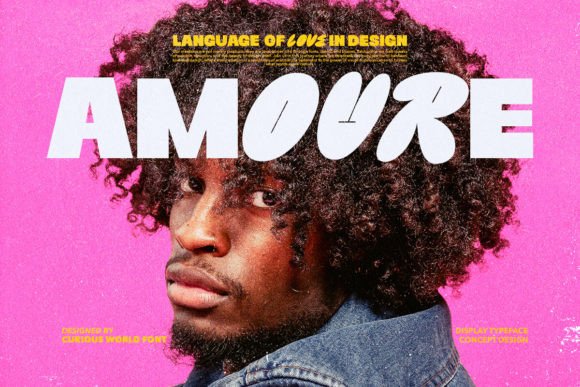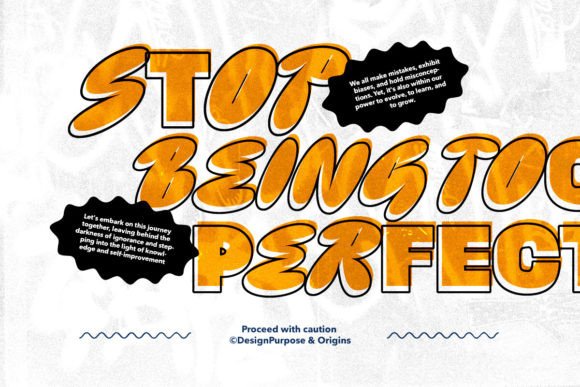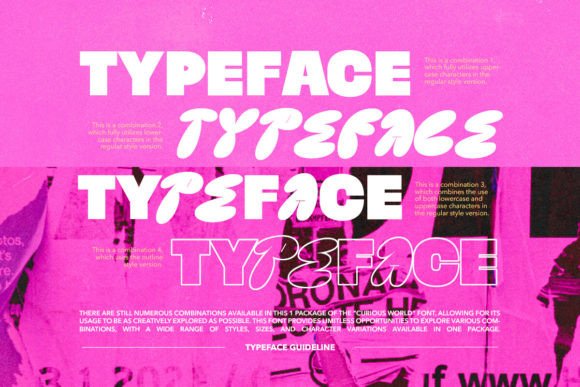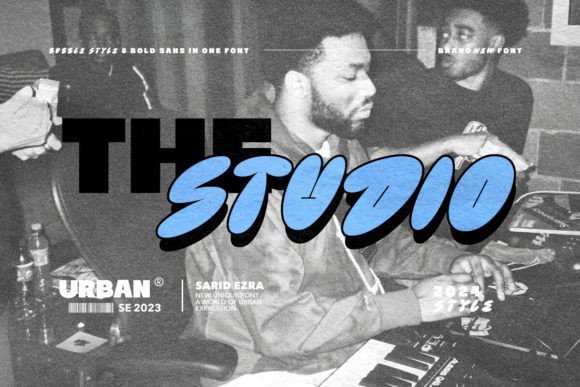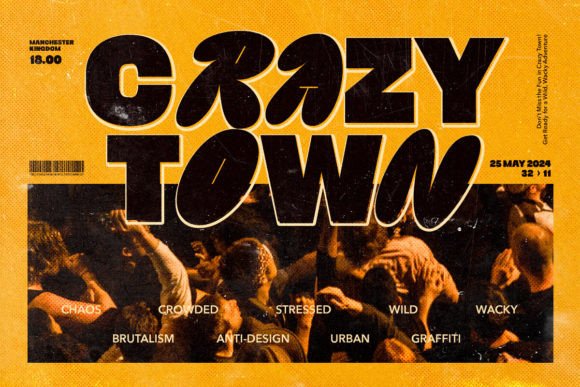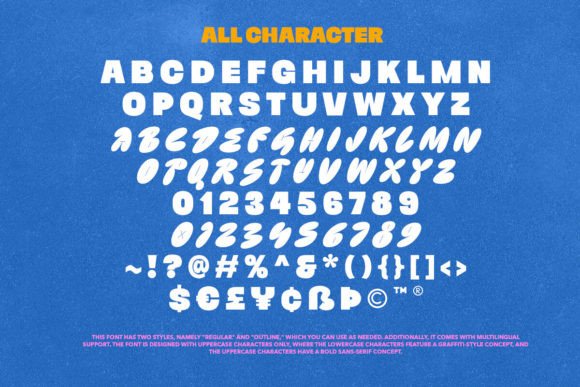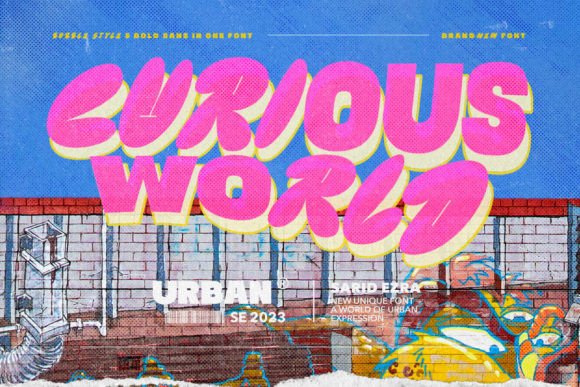
Introducing Curious World Font: A Unique Blend of Bubble and Bold Sans
In the world of typography, fonts play a crucial role in conveying messages, expressing emotions, and adding personality to designs. For designers and crafters looking for a font that can make a statement, Curious World Font is an exciting discovery. This innovative font combines the best of both worlds, merging bubble and bold sans styles in one unique typeface.
The Dual Nature of Curious World Font
What sets Curious World Font apart is its dual nature, where uppercase letters are presented in a bold sans style, while lowercase letters take on a playful bubble style. This contrast allows for creative flexibility, enabling designers to use both styles within a single word to add visual interest and emphasis. The result is a stunning visual effect that can elevate any design project.
Ideal for Street Art and Bold Statements
Curious World Font is particularly suited for street art and designs that require a wild and bold aesthetic. The font’s distinctive style can help artists and designers create eye-catching murals, posters, and digital graphics that demand attention. Whether you’re looking to add a pop of personality to a design or create a bold statement, Curious World Font is an excellent choice.
Additional Features: Alternates and Multilingual Support
To further enhance its versatility, Curious World Font includes alternate numbers for the bubble style, accessible through OpenType features. This feature allows designers to experiment with different variations, adding more depth and creativity to their work. Additionally, the font supports multiple languages, making it a valuable asset for designers working on international projects or targeting diverse audiences.
With Curious World Font, the creative possibilities are endless. Designers can use this font for a wide range of projects, including:
- Street art and graffiti
- Poster design and advertising
- Digital graphics and social media assets
- Handmade crafts and DIY projects
Tips for Using Curious World Font Effectively
To get the most out of Curious World Font, consider the following tips:
- Experiment with mixing uppercase and lowercase letters to create visually appealing combinations.
- Use the alternate numbers and OpenType features to add variety to your designs.
- Pair Curious World Font with complementary fonts to create contrast and hierarchy.
- Take advantage of the font’s multilingual support to reach broader audiences.
Curious World Font is a game-changer for designers and crafters seeking a unique and bold typographic solution. Its innovative combination of bubble and bold sans styles, along with its additional features and multilingual support, make it an invaluable asset for a wide range of creative projects. Whether you’re working on street art, digital graphics, or handmade crafts, Curious World Font is sure to inspire and elevate your designs.